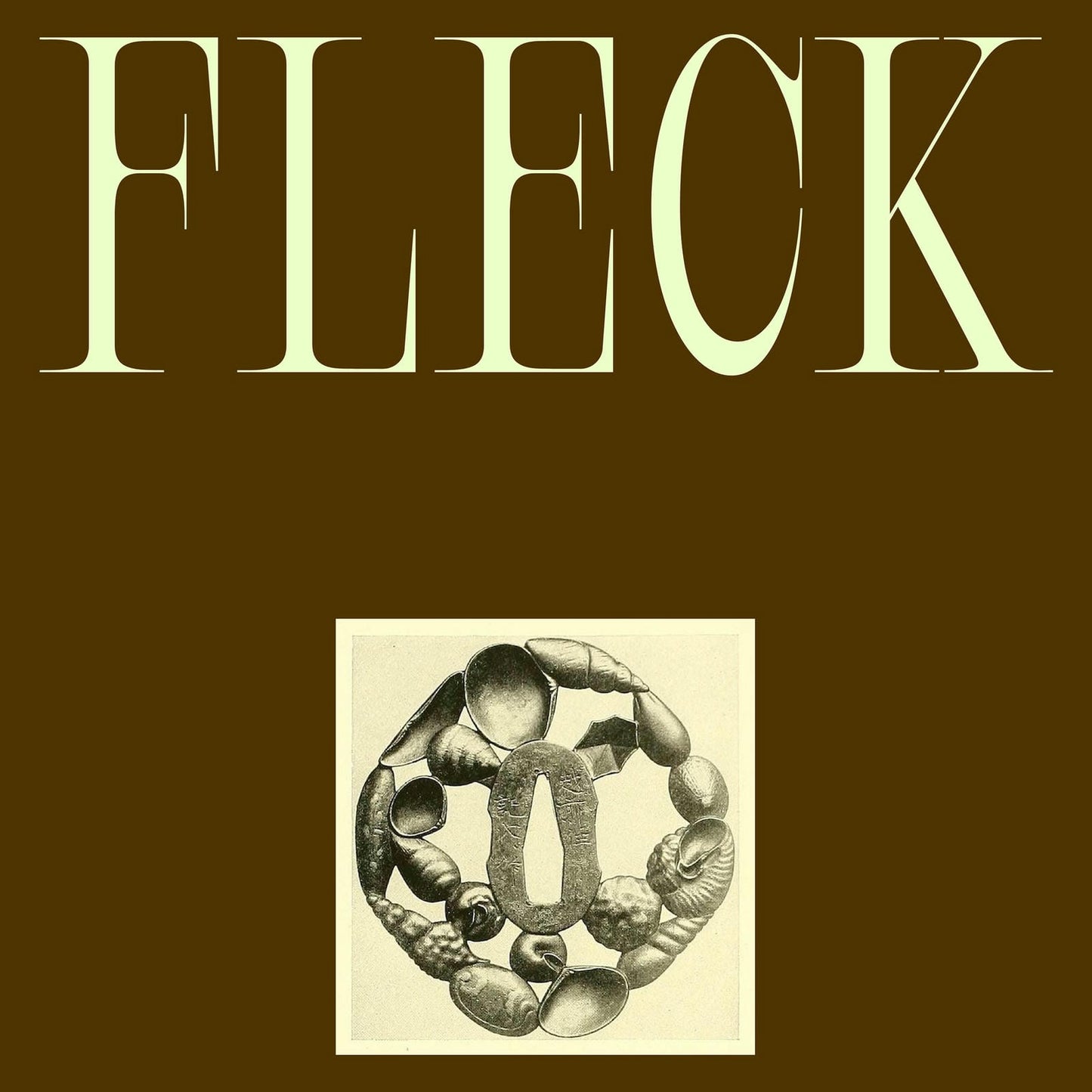
Fleck Regular
Gemma Mahoney
Fleck is a serif typeface that delves into the realms of exaggeration and dramatic flair. True to its name, Fleck is defined by its extended features that culminate in fine points and flecks, adding a touch of eccentricity and elegance to each character.
With its distinctive and exaggerated elements, Fleck brings a unique personality to any design project. Perfect for creating striking headlines, elegant editorial layouts, and sophisticated branding, Fleck’s intricate details ensure your text stands out with flair and sophistication.
- Uppercase & lowercase
- Symbols & punctuation
- Numbers
- Condensed accented characters